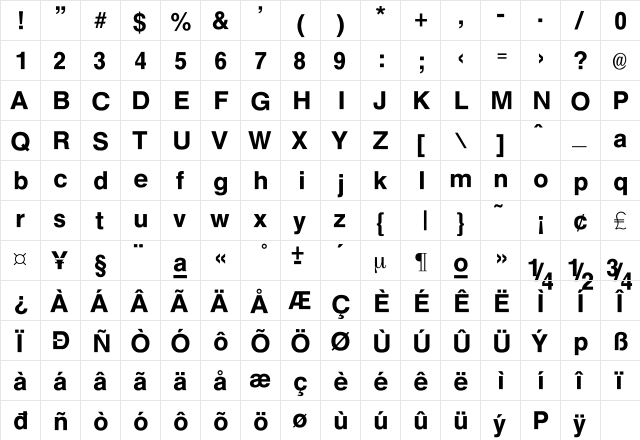
Westfalia Regular
Design Context for Westfalia Typeface
Westfalia offers clean, dependable letterforms without strong stylistic allegiance, making it a practical choice for designers who need flexibility.
Pro Tip: Use Westfalia in both headline and body roles to test its range before committing to a single application.